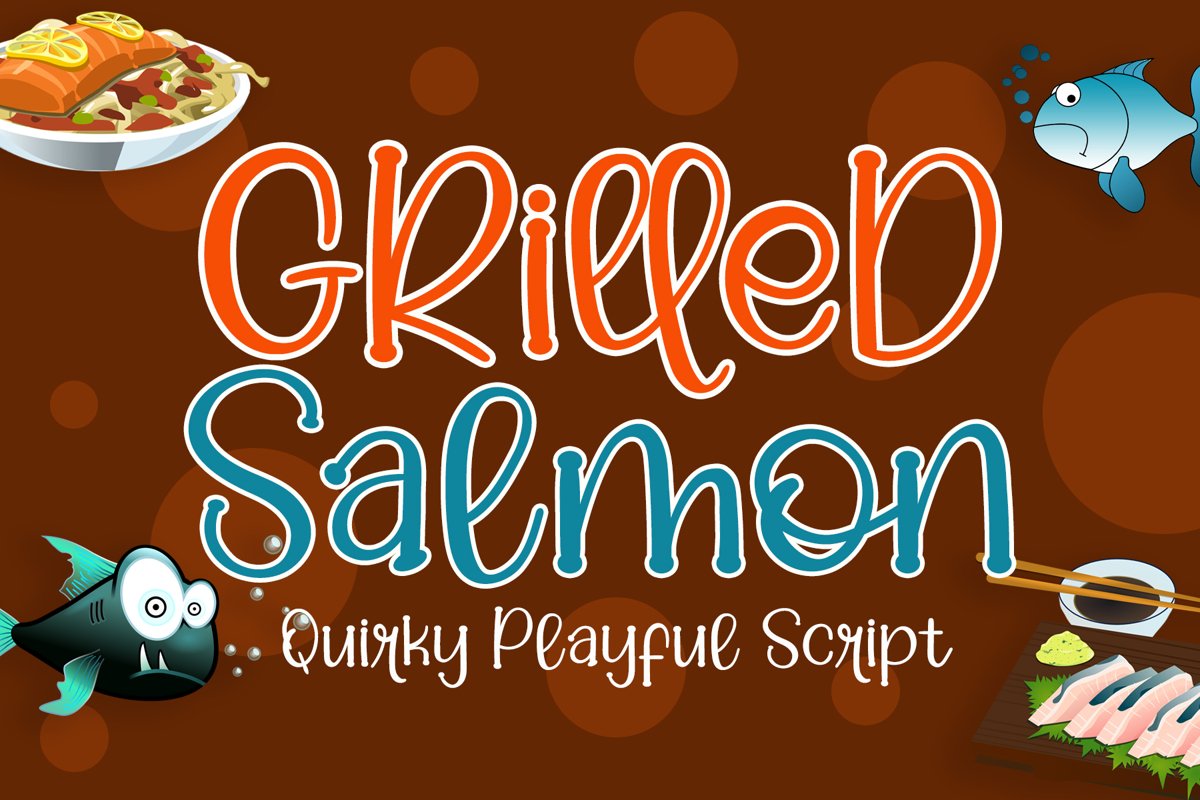
Grilled Salmon - Cute Playful Script
Grilled Salmon is quirky script that has fun vibe while still has its elegance. This font will add playful feeling into your design.